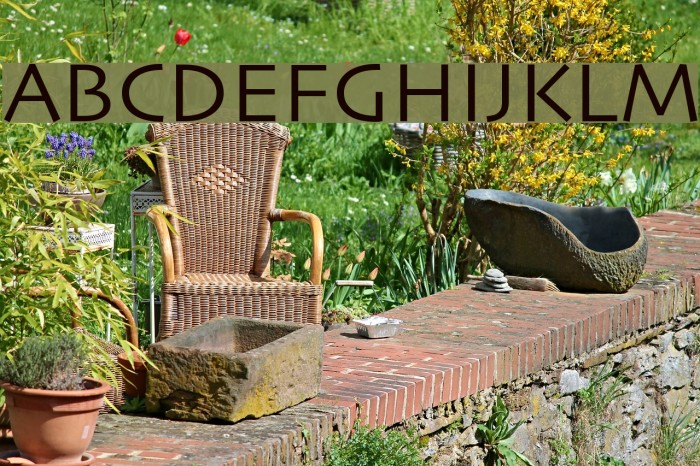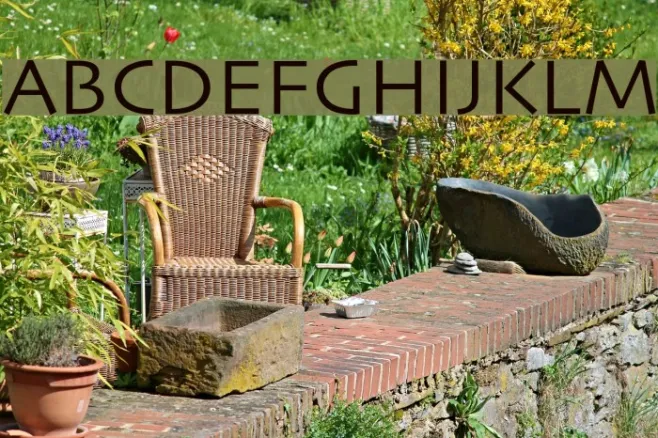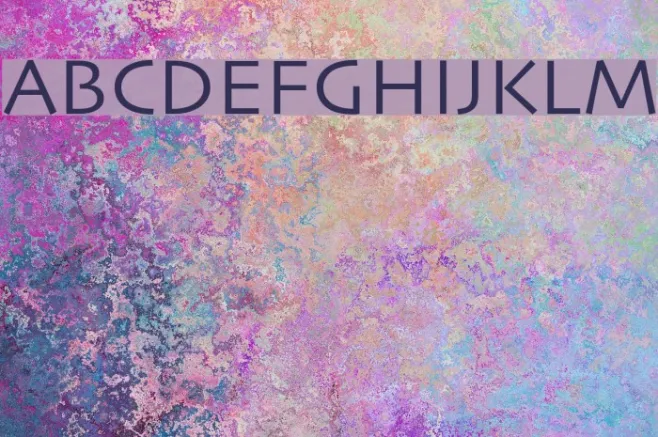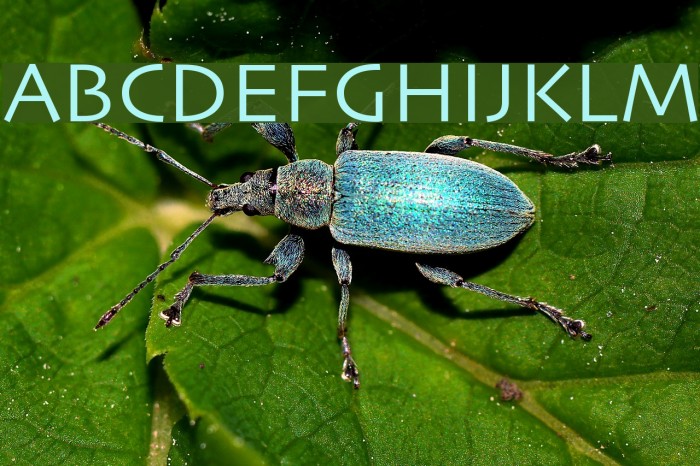
Skia Font
Skia Description
This font features a clean and modern sans-serif design, characterized by its smooth curves and geometric shapes. The uppercase letters are bold and well-defined, while the lowercase letters maintain a consistent and harmonious flow. The numerals are clear and easy to read, making them suitable for various applications. Special characters are distinct and integrate seamlessly with the overall style. The font's simplicity and elegance make it versatile for both digital and print media.
| Use Case | Headlines, Body text, Logos |
| Proposed Projects | Ideal for branding, web design, advertising, and editorial layouts. |